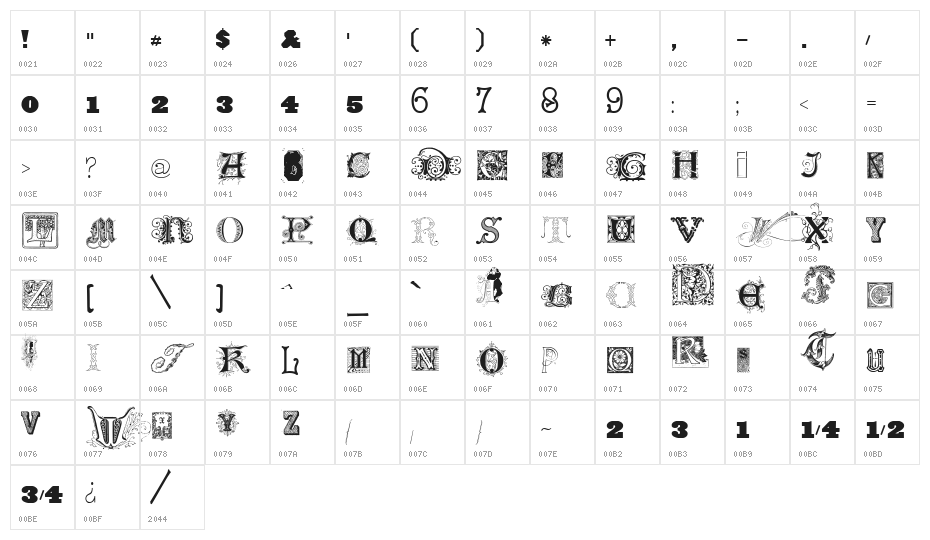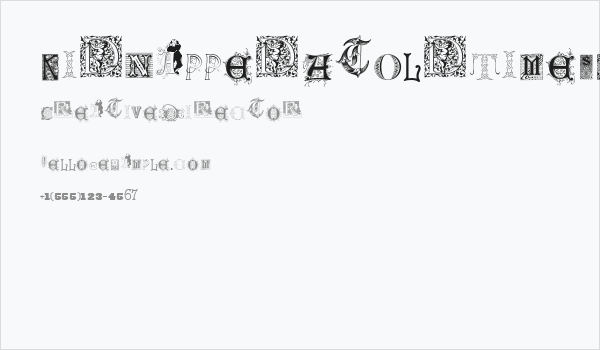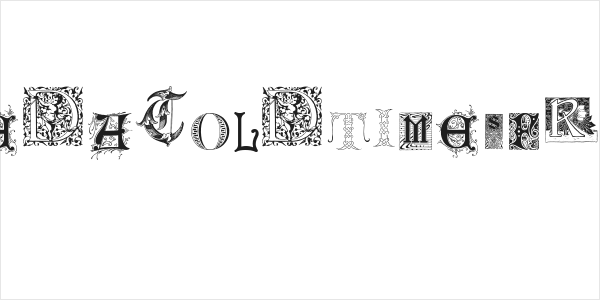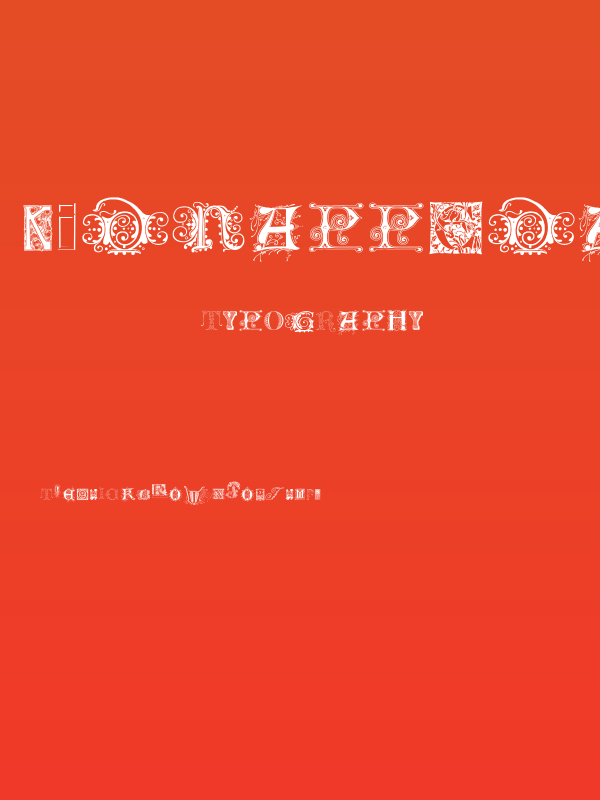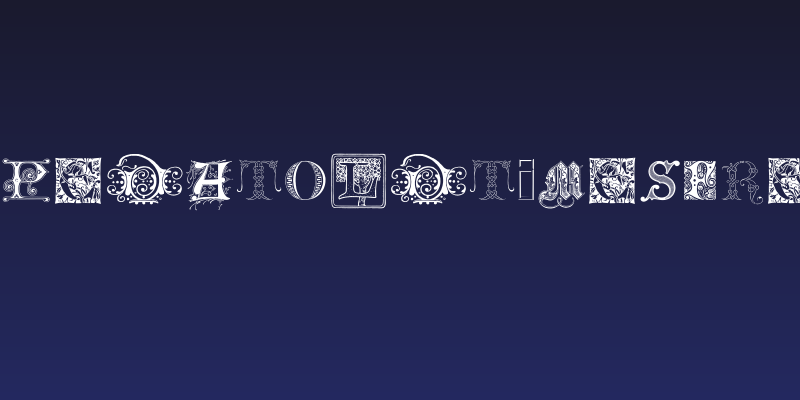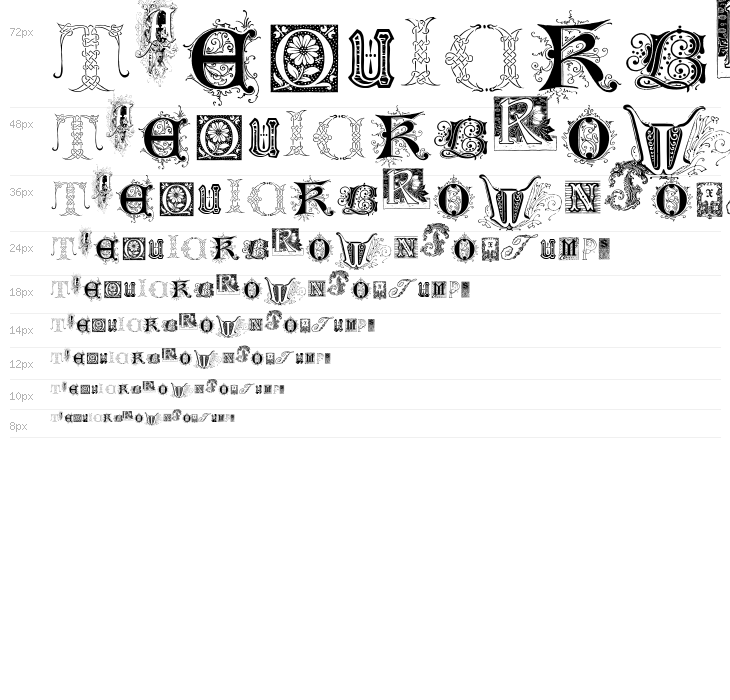
Kidnapped At Old Times Free Two Font
Kidnapped At Old Times Free Two Description
This font is a highly decorative and ornate typeface that features intricate designs within each character. The uppercase letters are embellished with elaborate flourishes and patterns, giving them a vintage and artistic appearance. The lowercase letters maintain a similar style, though slightly less intricate, allowing for readability while still retaining the decorative essence. The numbers are bold and solid, contrasting with the detailed letters, making them stand out. Special characters are also included, each with its own unique embellishments, adding to the overall artistic feel of the font.
| Use Case | Headlines, Logos, Decorative text |
| Proposed Projects | Ideal for vintage-themed posters, artistic book covers, decorative invitations, and branding that requires a classic and ornate touch. |